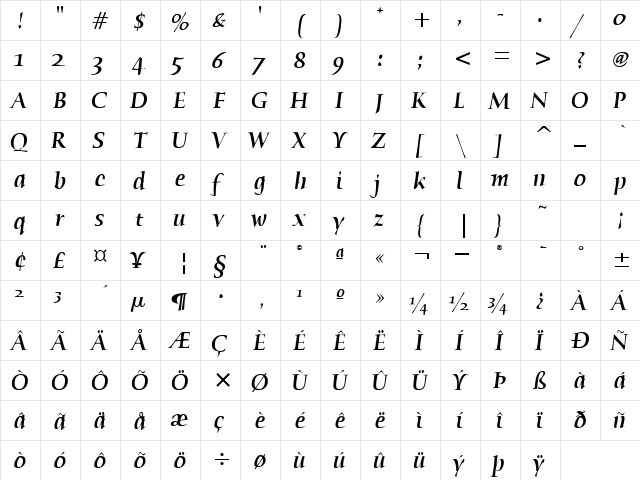
Humana Serif Md ITC TT MedIta
Design Context for Humana Serif Md ITC TT Typeface
Humana Serif Md ITC TT brings classic typographic sensibility to the table — its serifs and measured letterforms reflect centuries of print heritage.
Pro Tip: Use Humana Serif Md ITC TT for editorial body copy and considered headline work. Pair with a neutral sans for UI elements or captions to create a classic hierarchy.